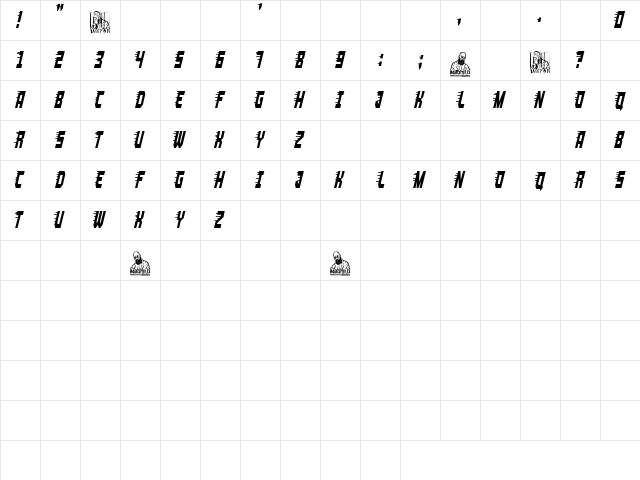
Terminal velocity Regular Free Font
Terminal velocity Regular
Designer: Woodcutter Manero
Design Context for Terminal velocity
Terminal velocity is a composed and adaptable typeface that performs quietly and consistently across a wide range of design contexts.
Pro Tip: Use Terminal velocity in both headline and body roles to test its range before committing to a single application.